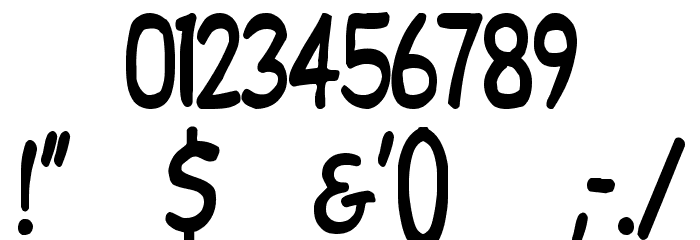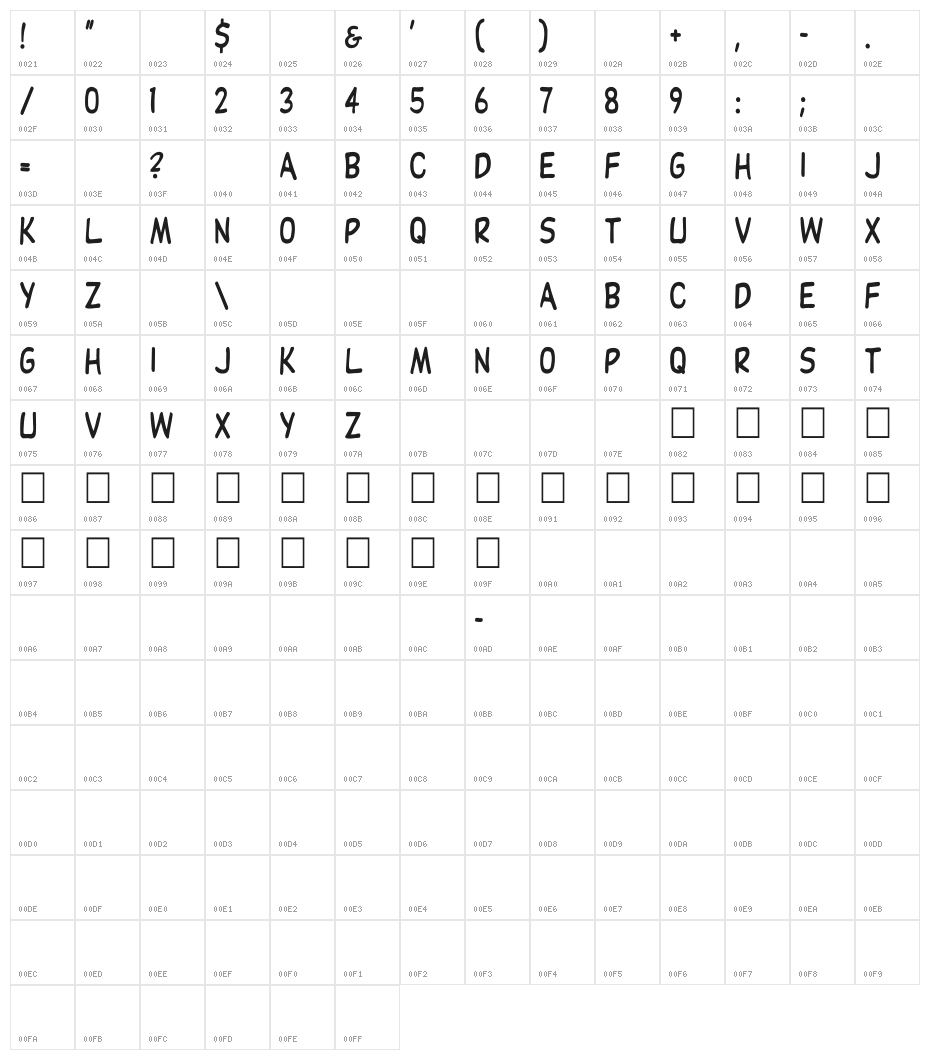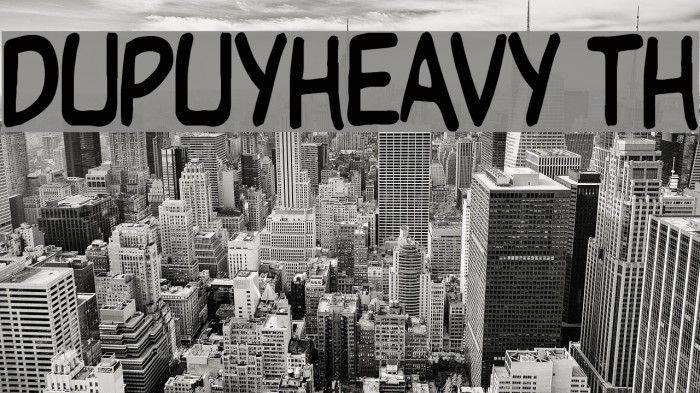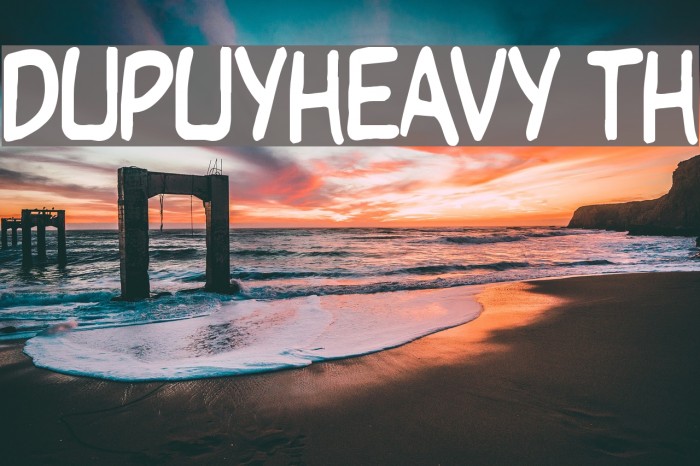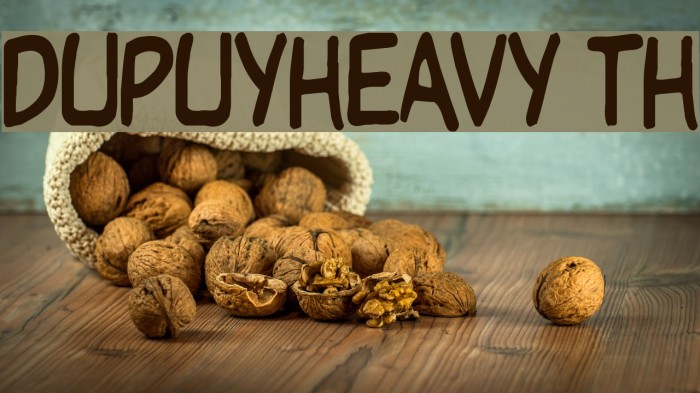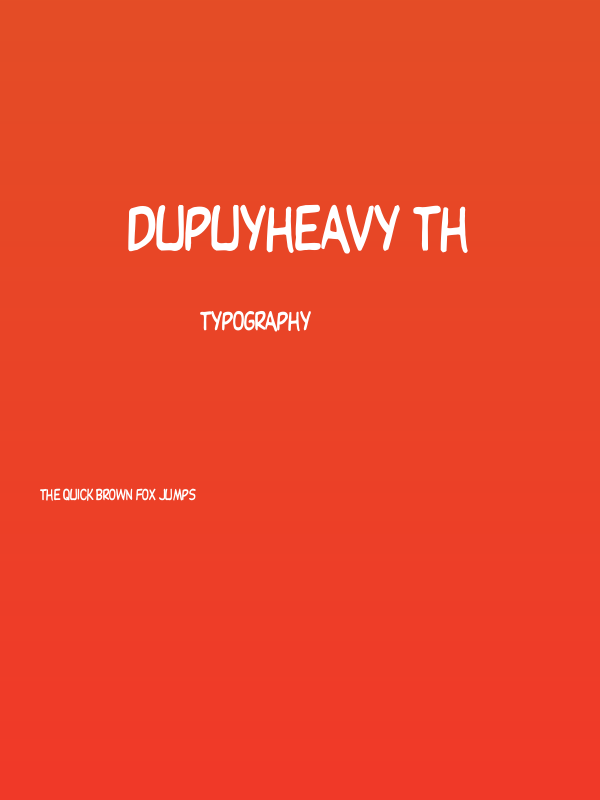
DupuyHeavy Th Font
DupuyHeavy Th Description
This font features a bold and playful design with rounded edges and a hand-drawn aesthetic. The characters are slightly irregular, adding a whimsical and informal touch. The uppercase letters are prominent and well-defined, while the lowercase letters maintain a consistent style that complements the uppercase. Numbers are clear and easy to read, matching the overall playful theme. Special characters are creatively styled, fitting seamlessly with the rest of the font. This font is ideal for projects that require a fun and approachable look, such as children's books, casual branding, or playful advertisements.
| Proposed Projects | Children's books, casual branding, playful advertisements, greeting cards. |